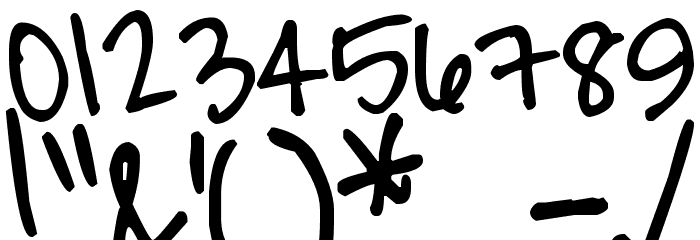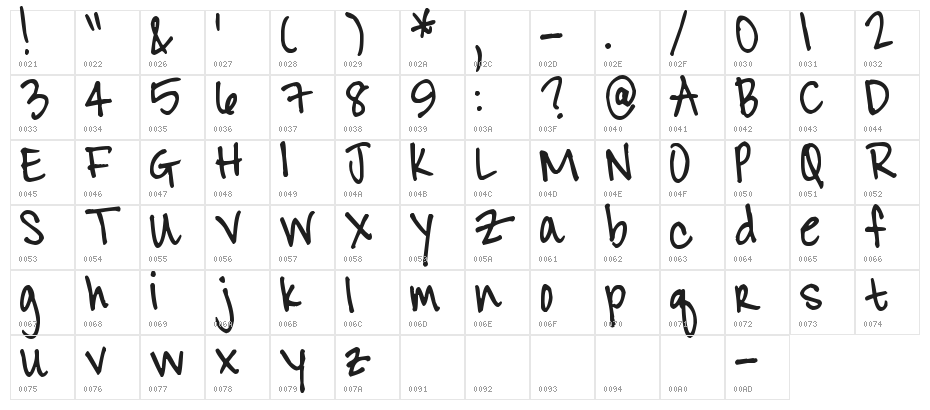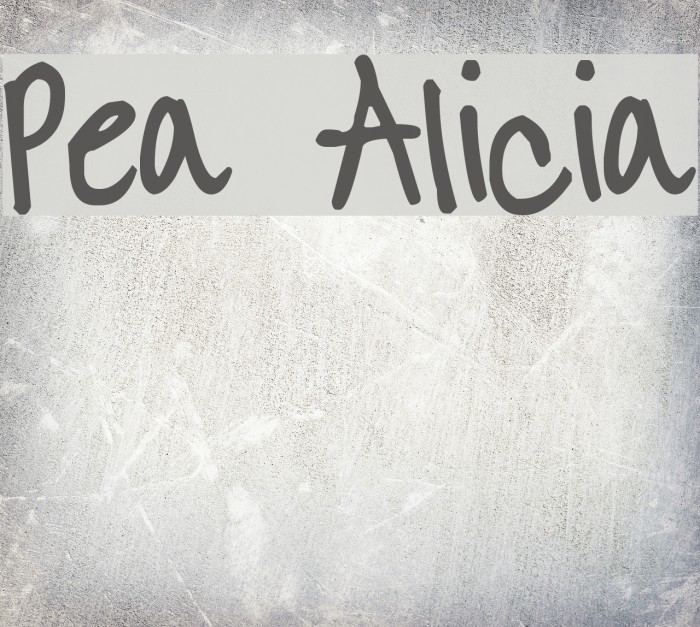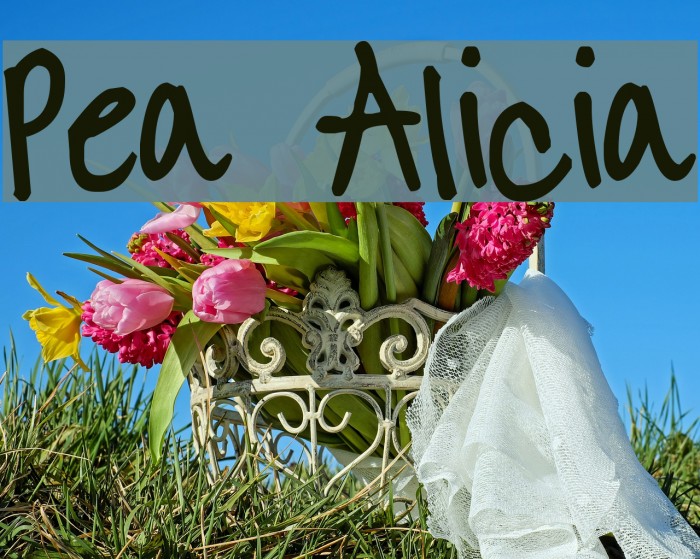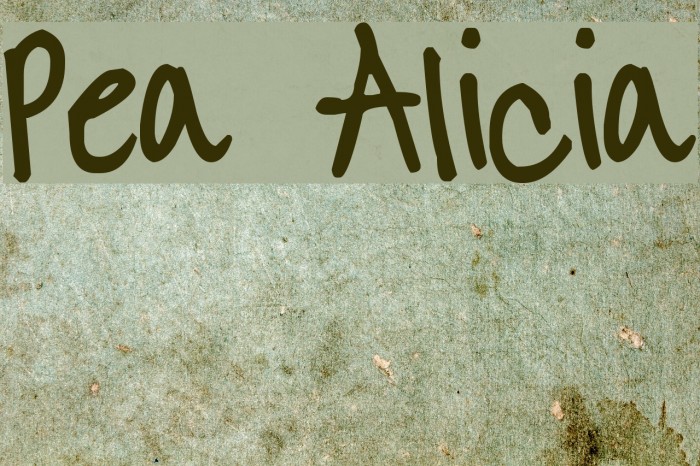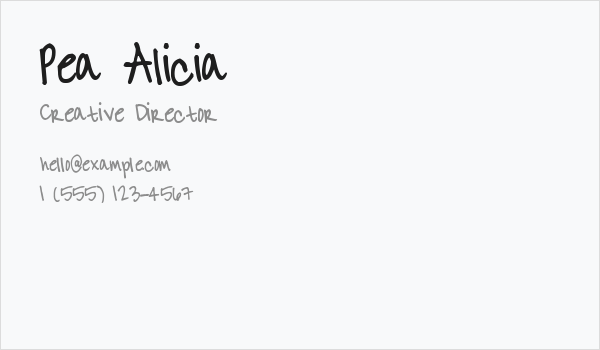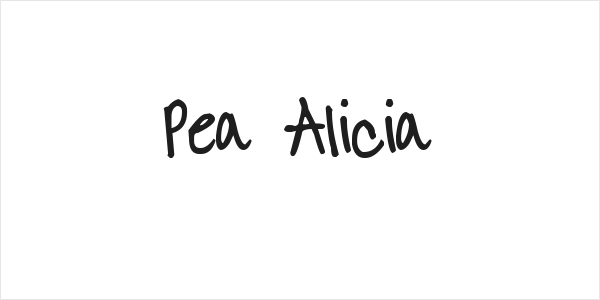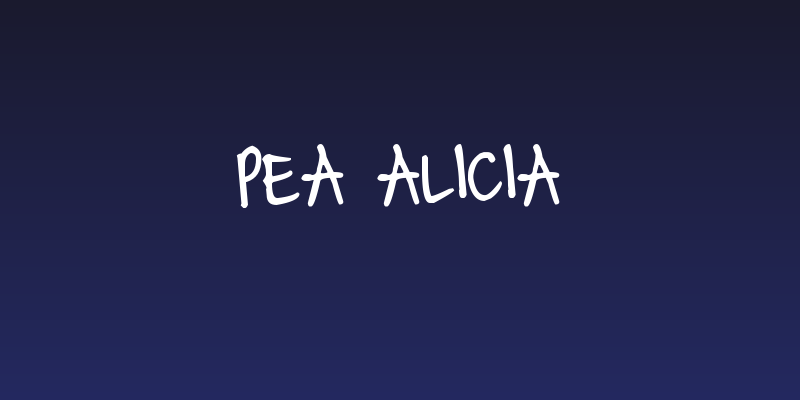
Pea Alicia Font
Pea Alicia Description
This font exudes a playful and casual handwritten style, characterized by its loose and informal strokes. The letters are slightly slanted, adding a dynamic and lively feel. The uppercase and lowercase letters maintain a consistent flow, with rounded edges and a natural, organic appearance. Numbers and special characters follow the same whimsical style, making the font versatile for various creative applications. The overall impression is friendly and approachable, suitable for projects that require a personal touch.
Overall StyleCasual, Playful
Use CaseHeadlines, Informal text, Creative projects
Proposed ProjectsIdeal for greeting cards, personal blogs, children's books, and informal branding.